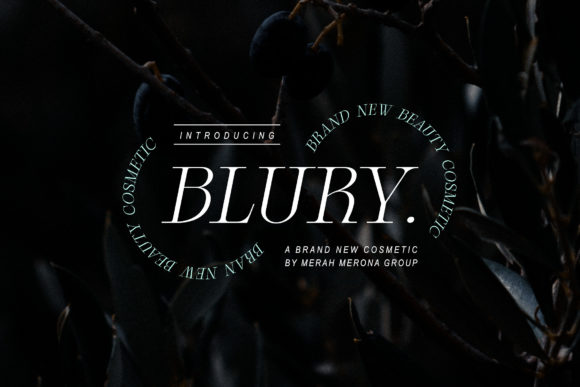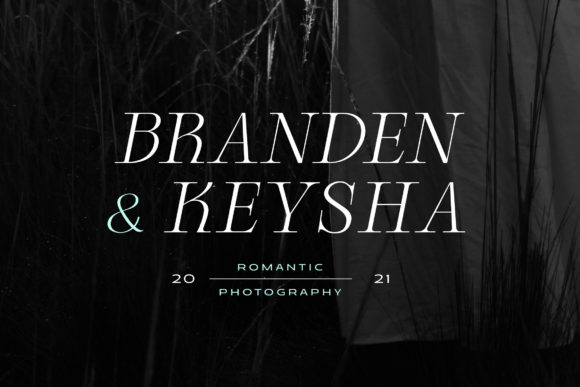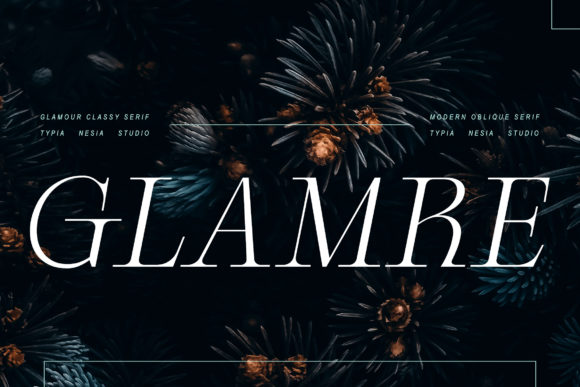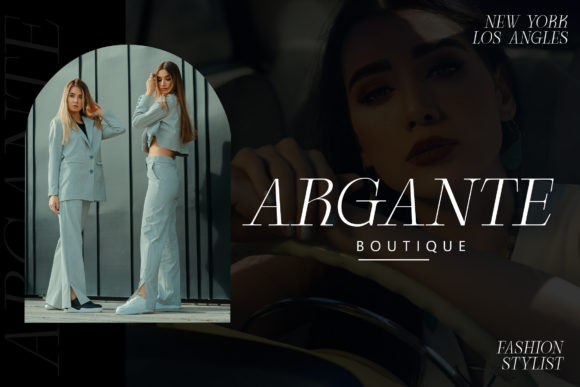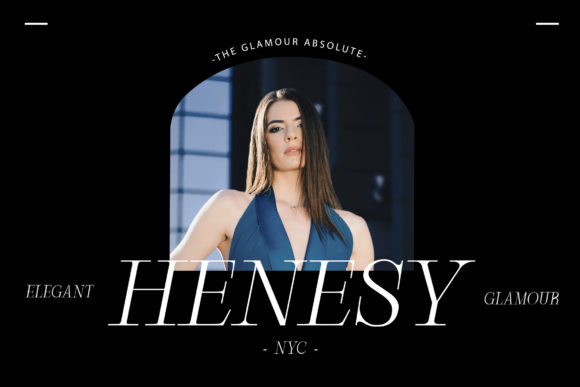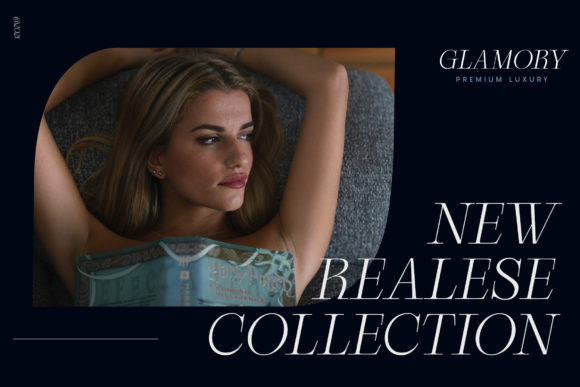
Glamre Font: Elevate Your Designs with Elegance and Sophistication
In the world of typography, fonts play a crucial role in making or breaking the visual appeal of a design. For designers and crafters, finding the perfect font that combines style, elegance, and uniqueness can be a daunting task. However, if you’re looking for a font that can add a touch of sophistication and glamour to your creations, look no further than Glamre Font.
What is Glamre Font?
Glamre Font is a delicate, thin, and stylish serif font that is expertly designed to make your creations look out of this world. With its sleek and refined lines, Glamre Font is perfect for designers and crafters who want to add a touch of elegance and sophistication to their work. Whether you’re working on a branding project, a wedding invitation, or a fashion blog, Glamre Font is sure to impress.
Key Features of Glamre Font
- Delicate and Thin Lines: Glamre Font features delicate and thin lines that give it a sleek and refined look. This makes it perfect for designs that require a touch of elegance and sophistication.
- Serif Style: As a serif font, Glamre Font features small lines or flourishes at the ends of the letters, which adds to its classic and sophisticated look.
- Stylish and Unique: Glamre Font is designed to be stylish and unique, making it perfect for designers and crafters who want to stand out from the crowd.
- Versatile: Glamre Font can be used on a variety of design projects, from branding and advertising to wedding invitations and fashion blogs.
Why Choose Glamre Font?
There are many reasons why designers and crafters choose Glamre Font for their projects. Here are a few:
- Elegance and Sophistication: Glamre Font adds a touch of elegance and sophistication to any design project, making it perfect for high-end brands and luxury products.
- Readability: Despite its delicate lines, Glamre Font is highly readable, making it perfect for body text and captions.
- Customization: Glamre Font can be easily customized to fit your brand’s style and aesthetic, making it a versatile choice for designers and crafters.
- Unique and Stylish: Glamre Font is a unique and stylish font that will set your designs apart from the rest.
How to Use Glamre Font in Your Designs
In conclusion, Glamre Font is a delicate, thin, and stylish serif font that is perfect for designers and crafters who want to add a touch of elegance and sophistication to their designs. With its sleek and refined lines, Glamre Font is versatile and can be used on a variety of design projects. Whether you’re working on a branding project, a wedding invitation, or a fashion blog, Glamre Font is sure to impress.